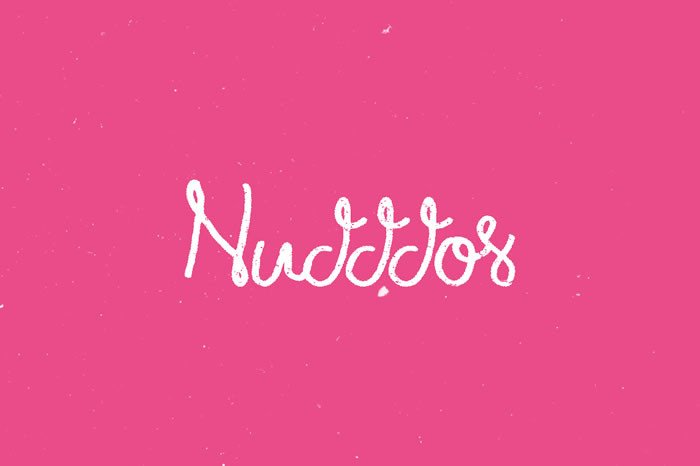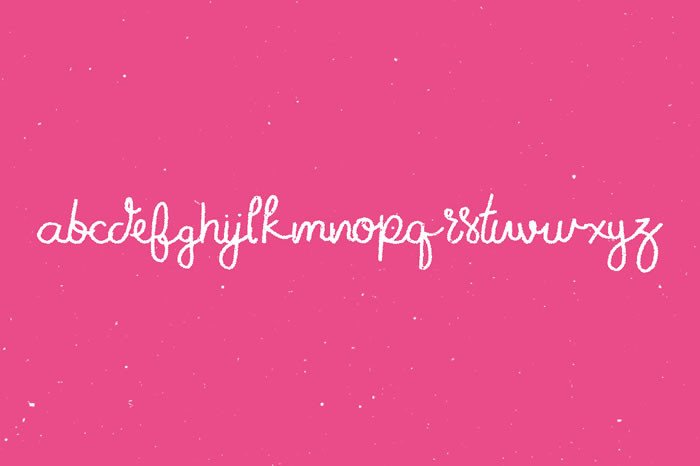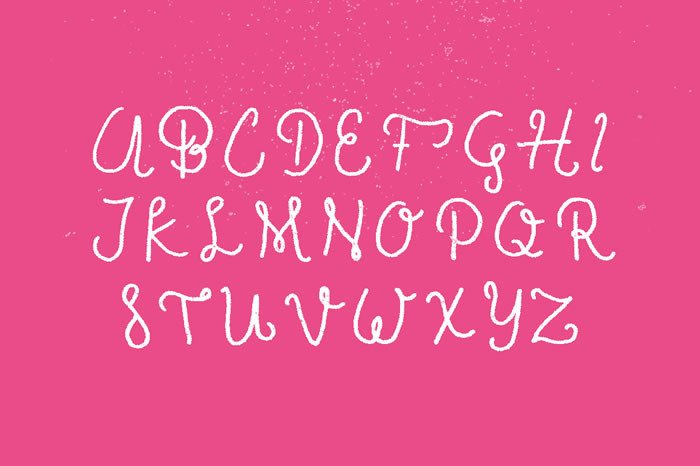
Nudddos Font
About Nudddos Font
Nudddos is a handmade typface and is perfect to use for logo’s, invitations, posters, quotes, letterheads, birthdays, and much more